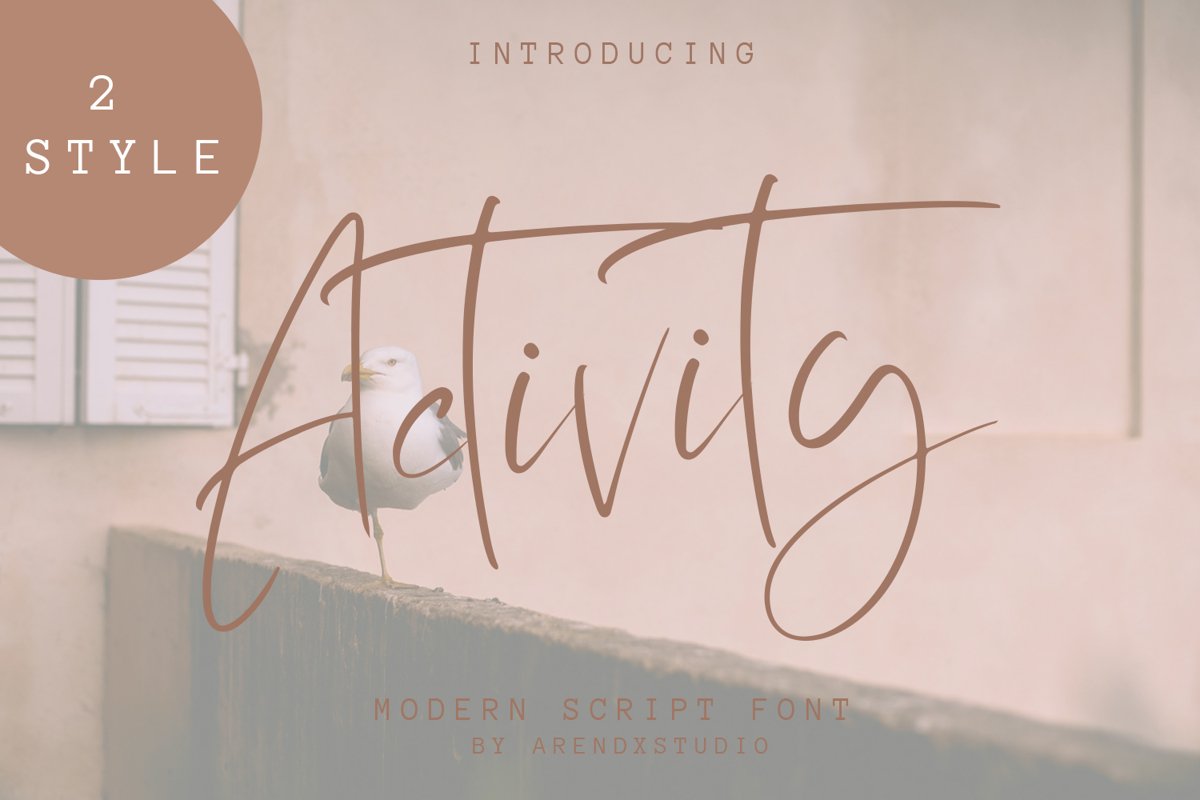
Activity Modern Script Font
Activity Alternate
Activity
introducing Activity Modern Script font, using style hand made with brushing. Activity a beautiful for wedding card design, logotype, website header, fashion design and any more.